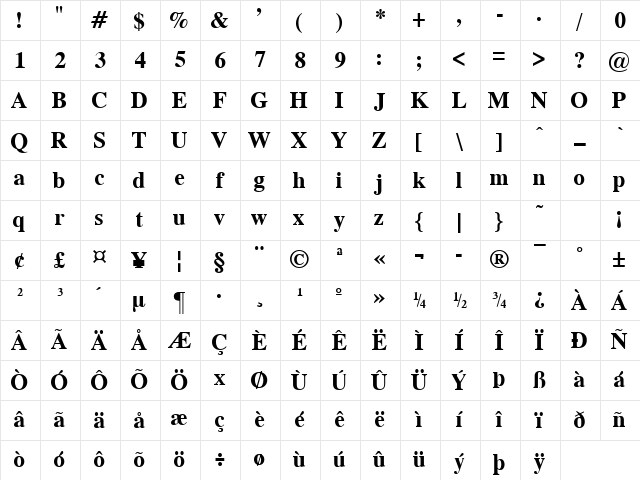
MgOpen Canonica Bold
Foundry: Magenta Ltd.
Design Context for MgOpen Canonica
MgOpen Canonica is a composed and adaptable typeface that performs quietly and consistently across a wide range of design contexts. Its bold stroke weight gives it real presence on the page.
Who designed the MgOpen Canonica Bold font?